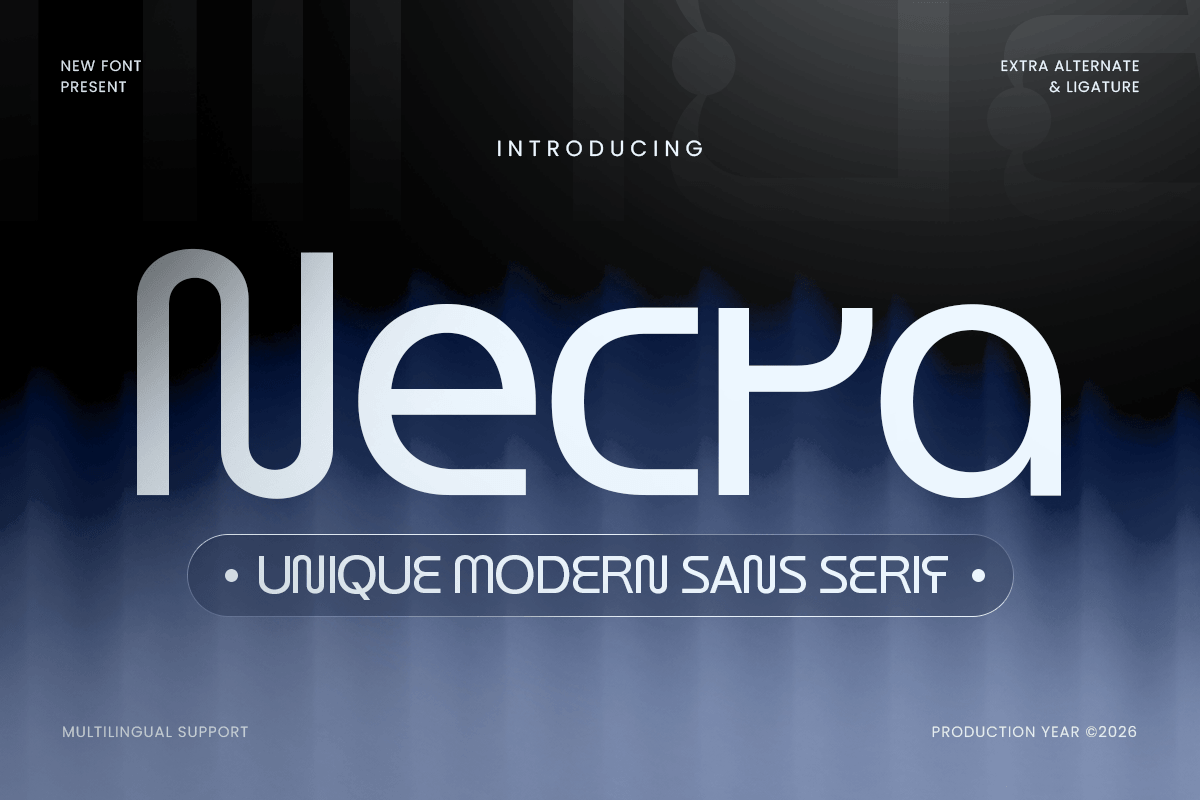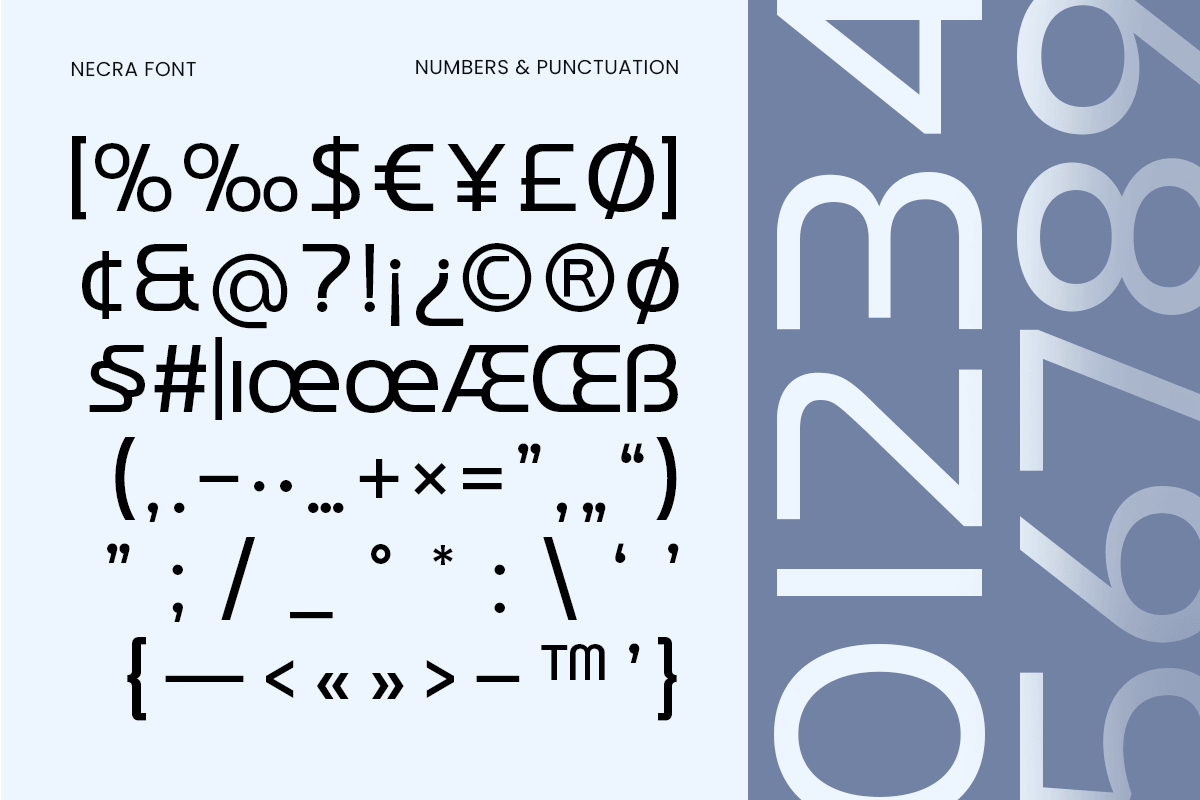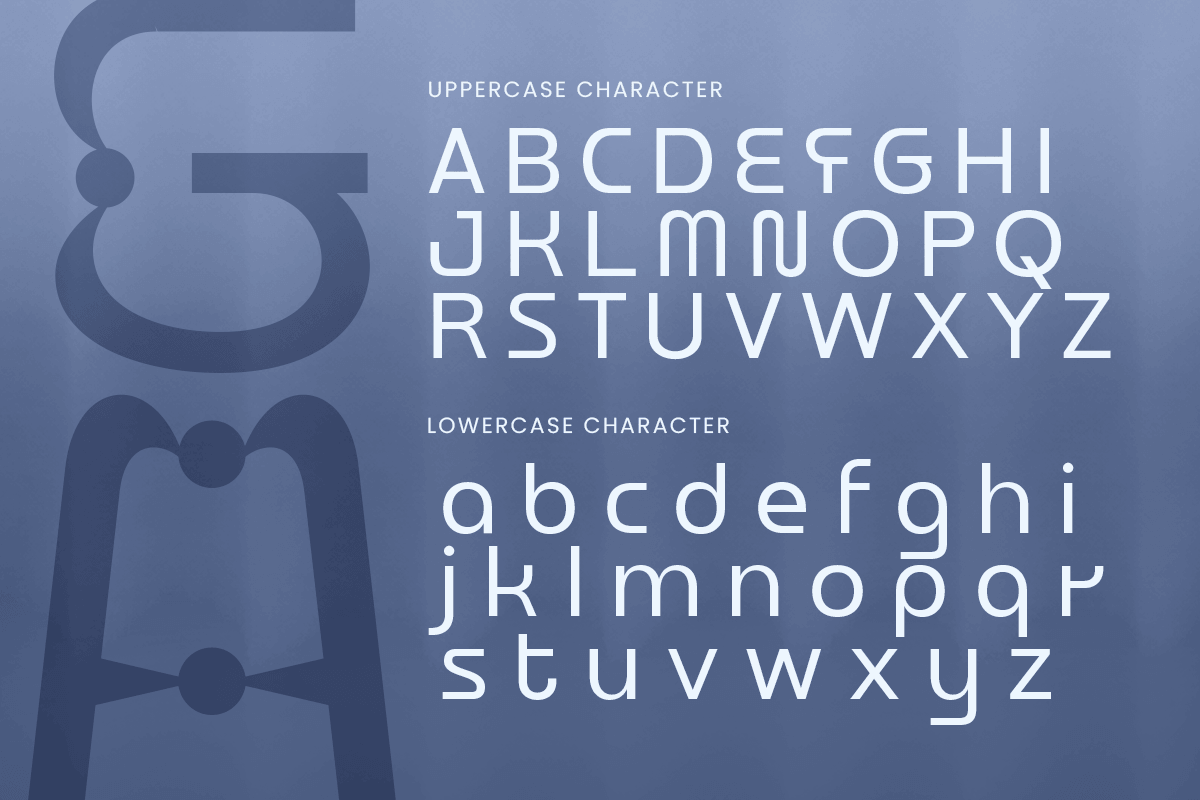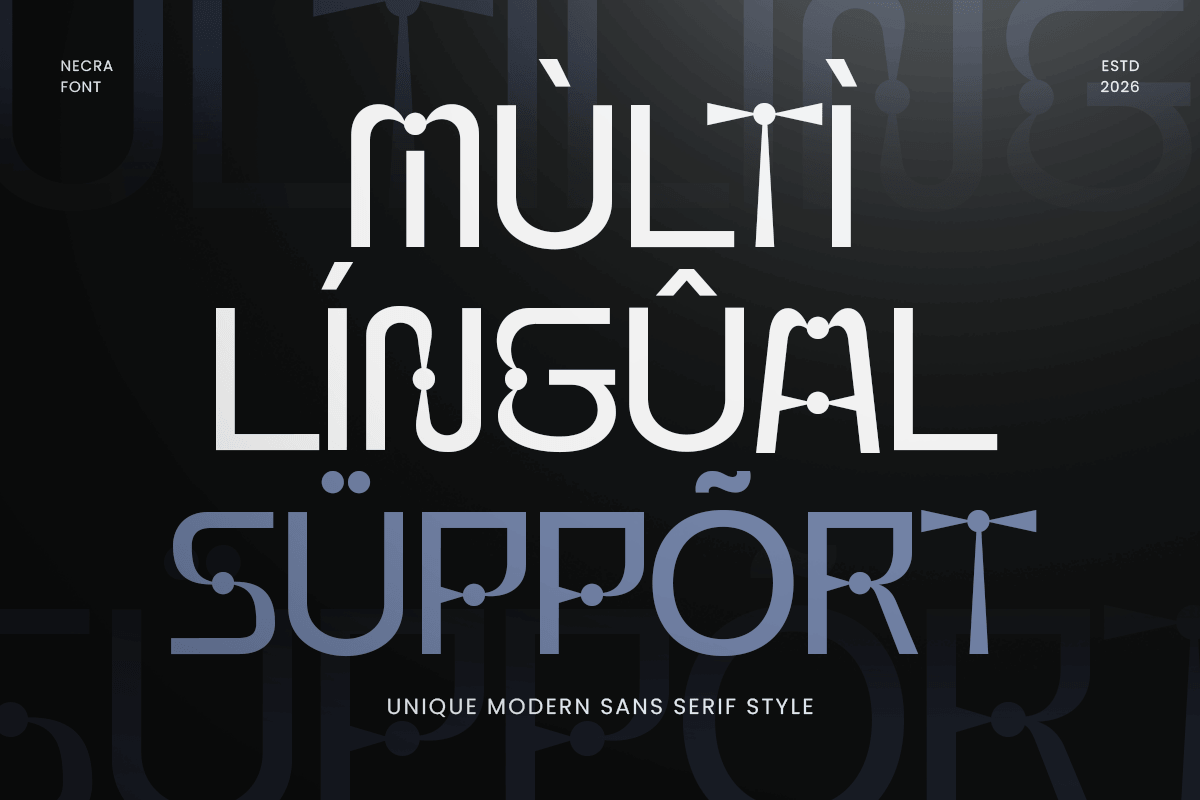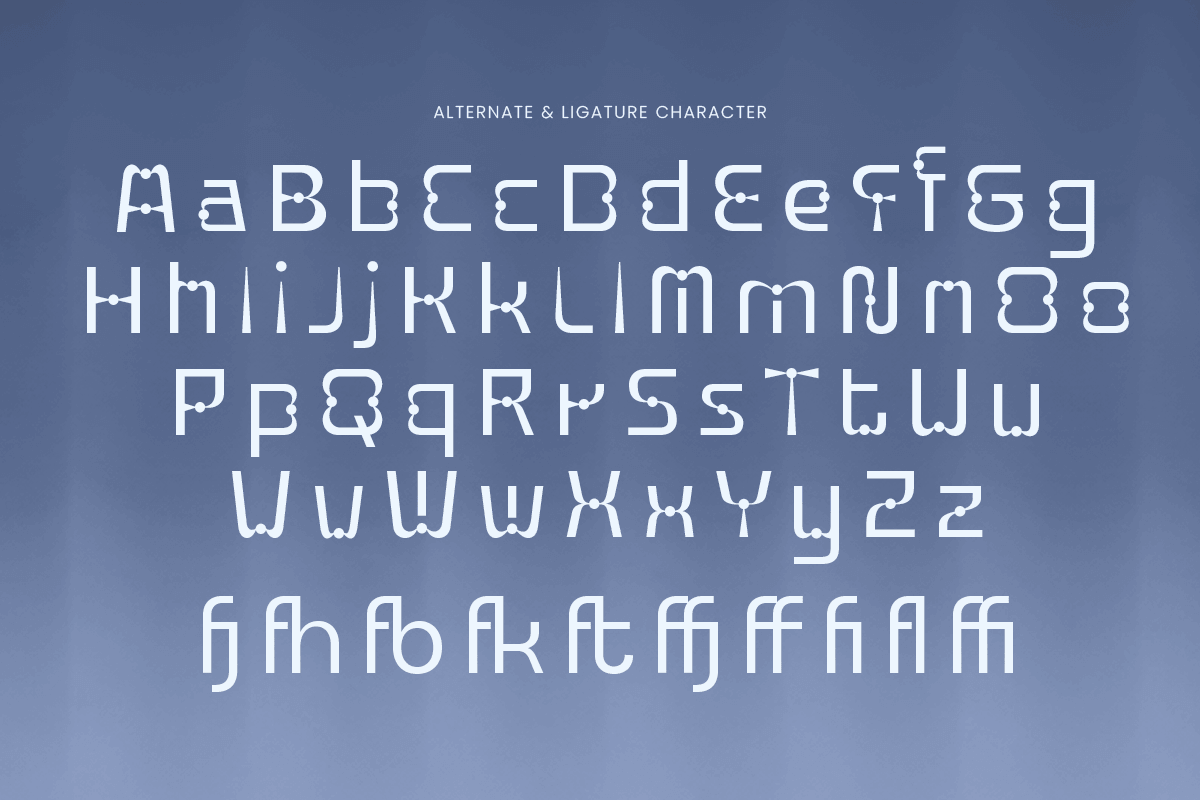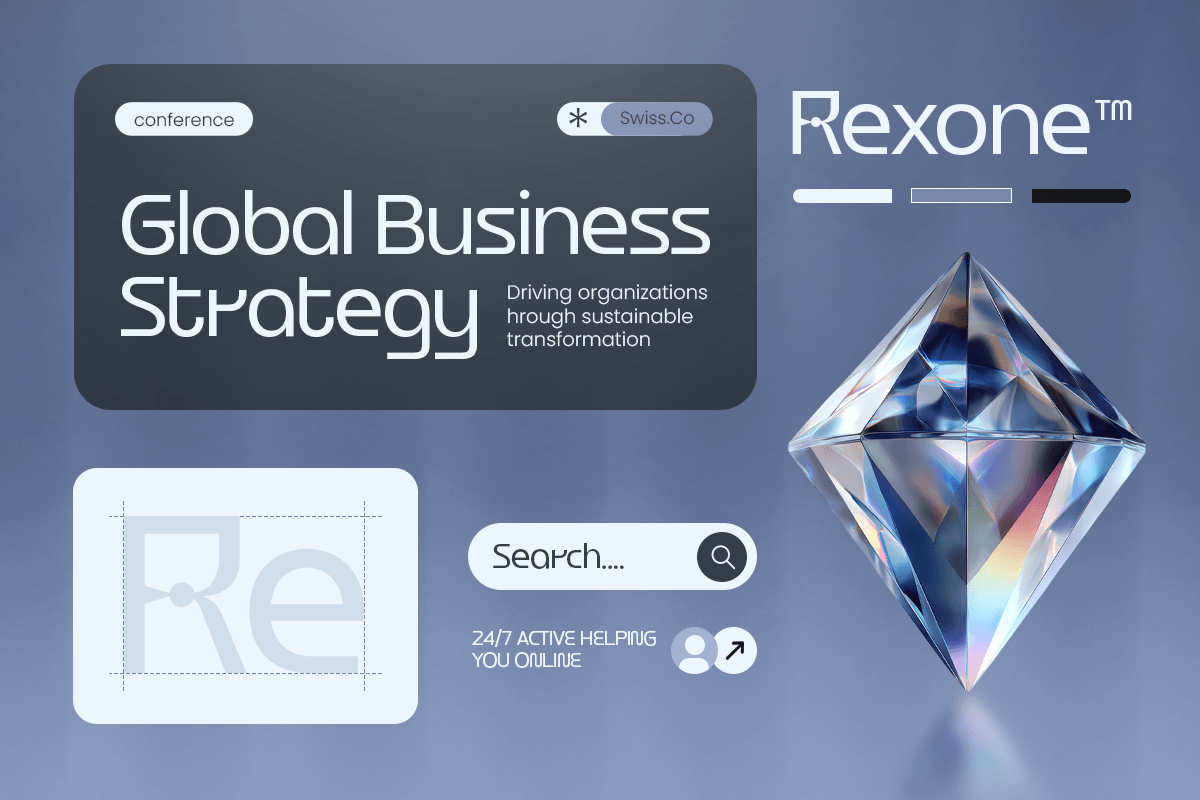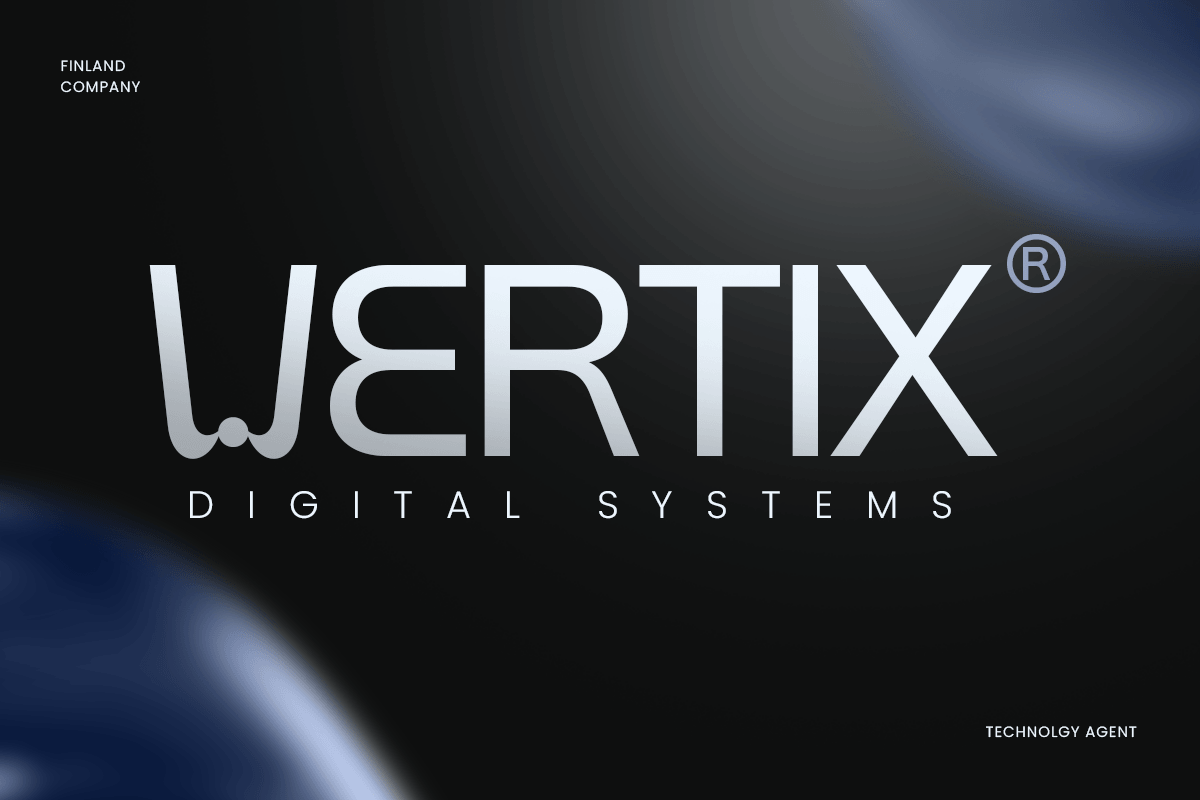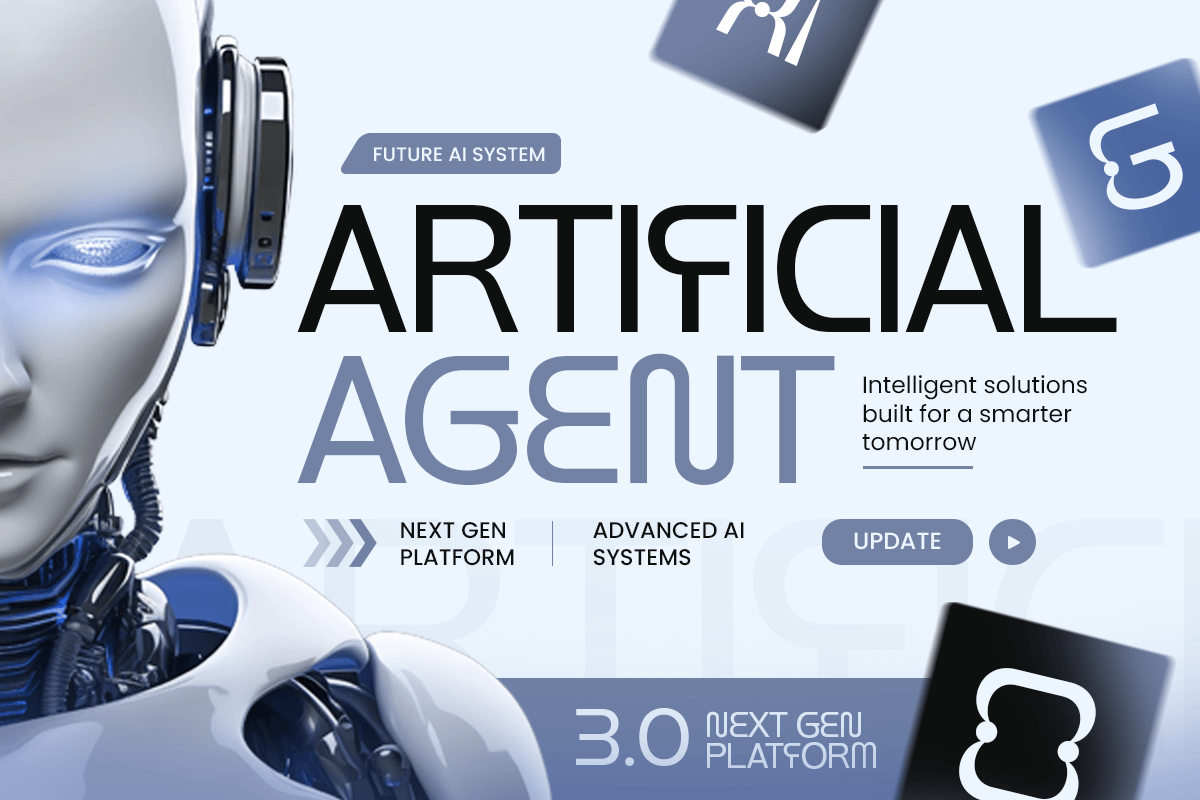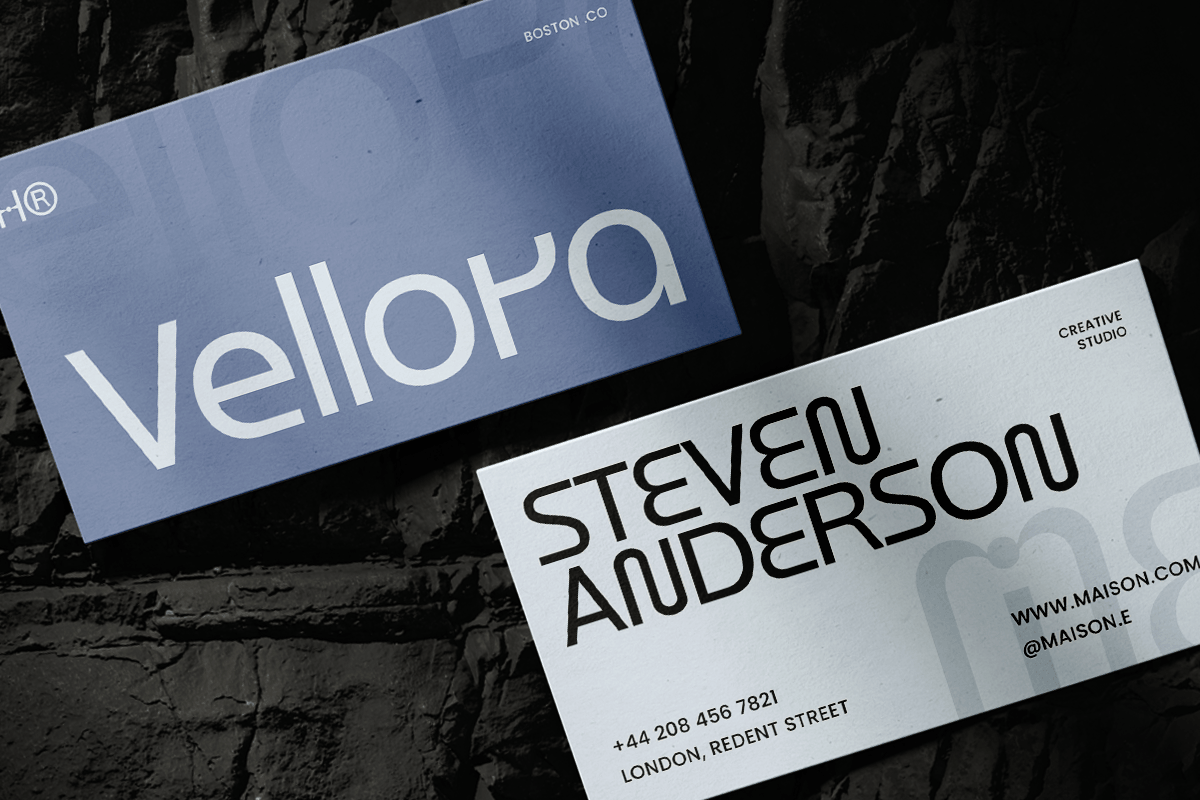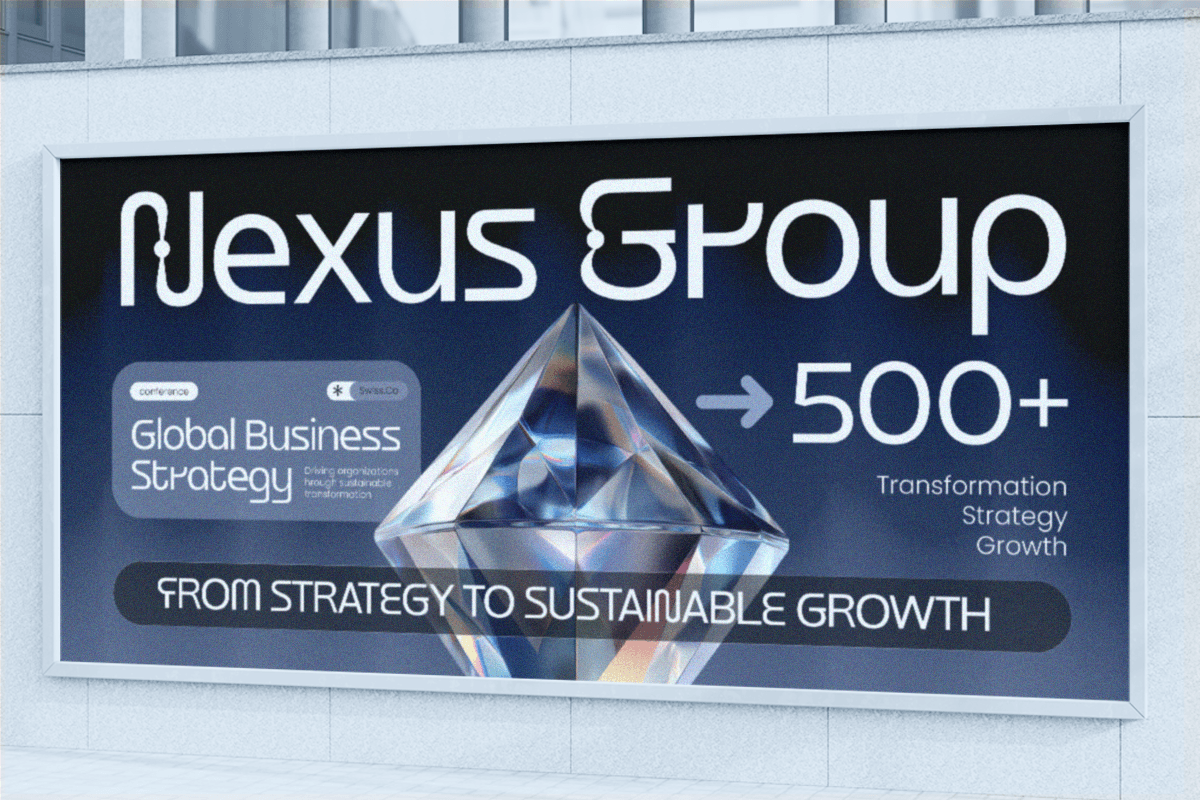
Necra – Unique Modern Sans Serif Font
Necra is a unique modern sans serif font crafted with clean structure, distinctive details, and a contemporary visual personality. Its balanced letterforms combine modern simplicity with creative character, making it an excellent choice for designers who need a fresh and memorable typeface.
Perfect for logos, brand identity, packaging, posters, headlines, editorial layouts, signage, and advertising, Necra brings a polished modern aesthetic to a wide range of creative projects. Its clean sans serif construction also works beautifully for websites, UI design, social media graphics, presentations, and digital campaigns.
Whether you're creating a modern logo font for a startup, developing stylish packaging for a lifestyle brand, or building bold editorial typography, Necra delivers versatility without losing its unique personality. Its contemporary sans serif style makes it equally effective across professional, fashion, creative, and commercial design.
Necra – Unique Modern Sans Serif Features
- Unique modern sans serif character set
- Clean and contemporary letterform construction
- Distinctive details for memorable visual identities
- Ideal for logos, branding, packaging, and headlines
- Includes uppercase, lowercase, numerals, and punctuation
- Great for editorial, social media, signage, and advertising
- Suitable for both digital and print projects
- OpenType features for creative flexibility
Multilingual Support
Afrikaans, Albanian, Asu, Basque, Bemba, Bena, Breton, Chiga, Cornish, Dutch, English, Estonian, Filipino, Finnish, Friulian, Galician, German, Gusii, Indonesian, Irish, Italian, Kabuverdianu, Kalenjin, Kinyarwanda, Luo, Luxembourgish, Luyia, Machame, Makhuwa-Meetto, Makonde, Malagasy, Manx, Morisyen, North Ndebele, Nyankole, Oromo, Portuguese, Quechua, Romansh, Rombo, Rundi, Rwa, Samburu, Sango, Sangu, Scottish Gaelic, Sena, Shambala, Shona, Soga, Somali, Spanish, Swahili, Swedish, Swiss, and more.